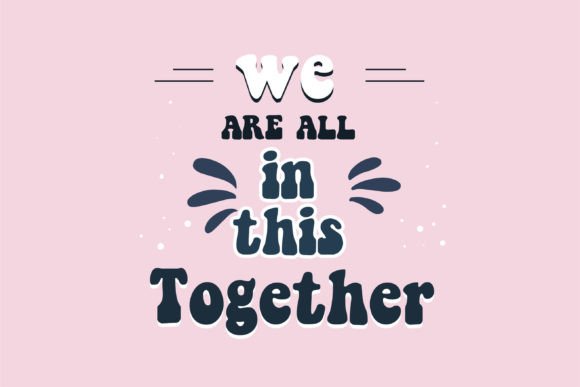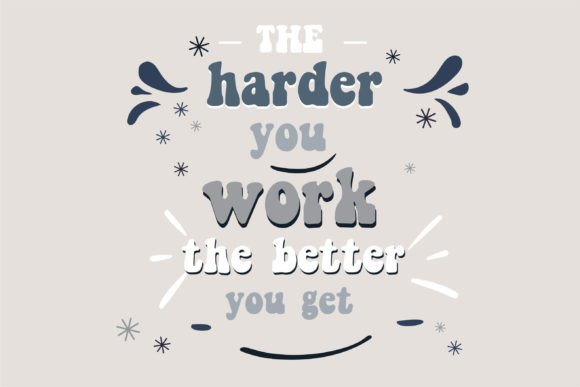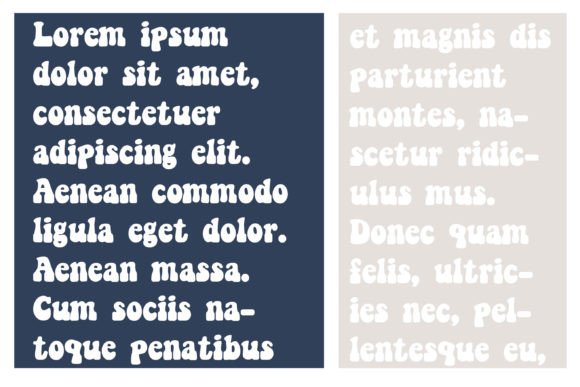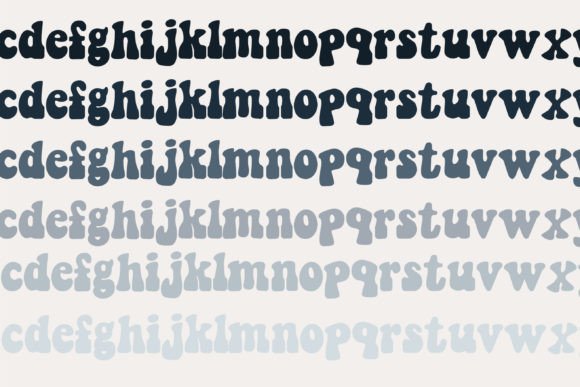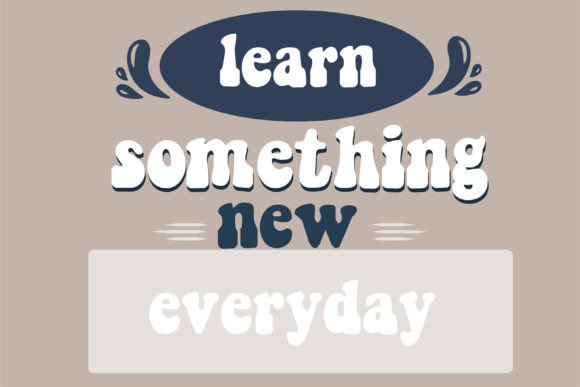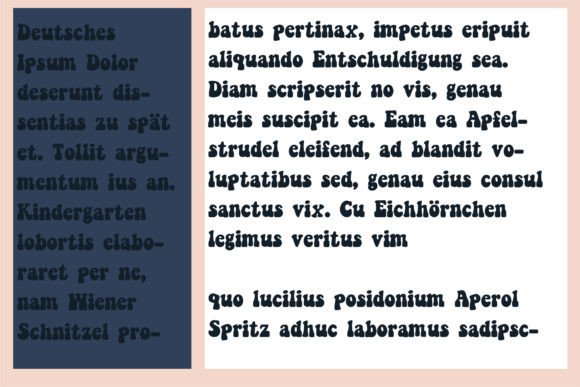
Introducing Boogie Woogie Font: The Ultimate Display Font for Creative Expression
Are you tired of using the same old fonts for your creative projects? Look no further than the Boogie Woogie Font, a fun and quirky display font that’s sure to bring your ideas to life. Masterfully designed to become a true favorite, this font has the potential to elevate each of your creative endeavors to new heights.
What is Boogie Woogie Font?
Boogie Woogie Font is a display font that’s perfect for designers, crafters, and anyone looking to add a touch of personality to their projects. This font is designed to be highly versatile, making it suitable for a wide range of applications, from posters and flyers to social media graphics and website headers.
Key Features of Boogie Woogie Font
- Fun and Quirky Design: Boogie Woogie Font features a unique and playful design that’s sure to grab attention. Its quirky style is perfect for projects that require a bit of personality and whimsy.
- Highly Versatile: This font is designed to be highly versatile, making it suitable for a wide range of applications, from print materials to digital projects.
- Easy to Read: Despite its playful design, Boogie Woogie Font is easy to read, even at smaller sizes. This makes it perfect for use in a variety of contexts, from headlines to body text.
Uses for Boogie Woogie Font
Boogie Woogie Font is perfect for a wide range of creative projects, including:
- Posters and Flyers: Add a touch of personality to your posters and flyers with Boogie Woogie Font. Its quirky design is sure to grab attention and make your message stand out.
- Social Media Graphics: Use Boogie Woogie Font to create eye-catching social media graphics that showcase your brand’s personality.
- Website Headers: Add a touch of whimsy to your website headers with Boogie Woogie Font. Its playful design is sure to make your website stand out.
- Crafting Projects: Boogie Woogie Font is perfect for crafters who want to add a personal touch to their projects. Use it to create custom signs, banners, and other decorative items.
Tips for Using Boogie Woogie Font
Here are a few tips for getting the most out of Boogie Woogie Font:
- Use it Sparingly: While Boogie Woogie Font is fun and playful, it can be overwhelming if used too much. Use it sparingly to add emphasis to your message.
- Pair it with Other Fonts: Boogie Woogie Font pairs well with other fonts, including serif and sans-serif fonts. Experiment with different pairings to find the one that works best for your project.
- Experiment with Colors: Boogie Woogie Font looks great in a variety of colors. Experiment with different colors to find the one that works best for your project.
Boogie Woogie Font is a fun and quirky display font that’s perfect for designers, crafters, and anyone looking to add a touch of personality to their projects. Its highly versatile design makes it suitable for a wide range of applications, from posters and flyers to social media graphics and website headers. With its easy-to-read design and compatibility with multiple platforms, Boogie Woogie Font is sure to become a true favorite in your creative toolkit.